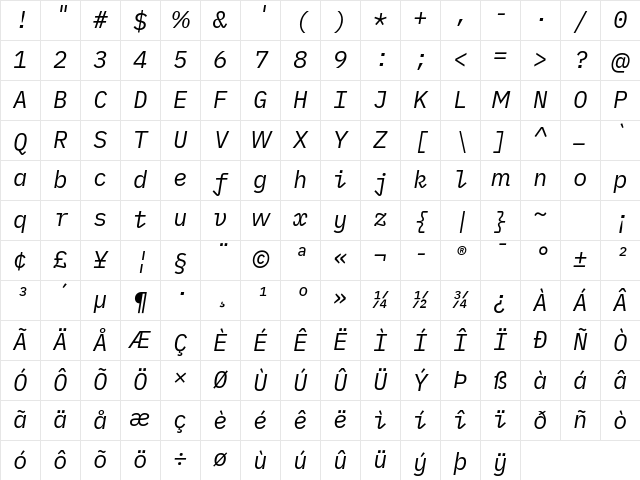
iA Writer Duo S is a composed and adaptable typeface that performs quietly and consistently across a wide range of design contexts. The slanted form adds forward momentum and visual energy.
Pro Tip: Use iA Writer Duo S for emphasis, pull quotes, and subheadings where its slanted energy can add rhythm to the layout.